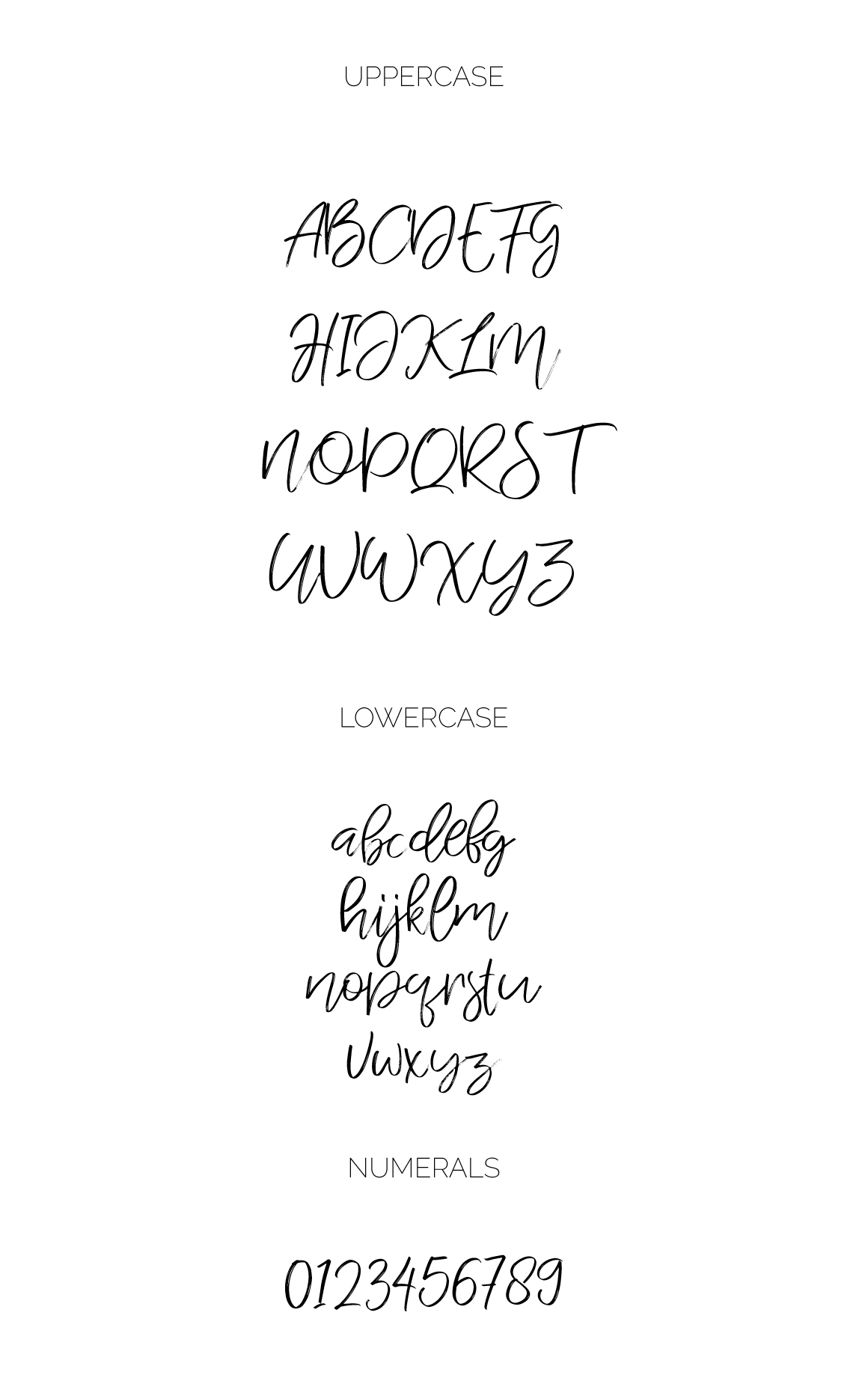
Introducing Jandys Typeface which has a fast dry brush and elegant style. It has the looks of that natural modern handwriting. This font is best used in a design project that has a concept of elegant, cool and fun! Mats-Peter Forss has made the main preview image to showcase even more coolness of this fonts!
Jandys Typeface by Alit Design